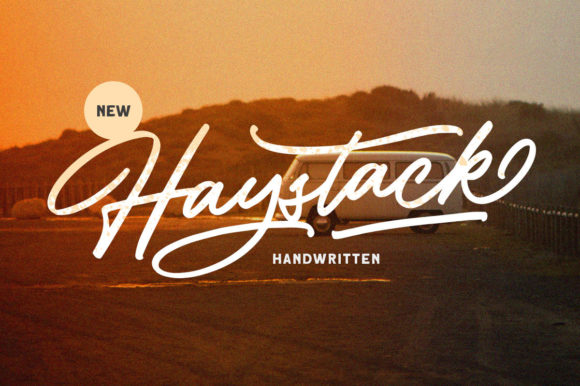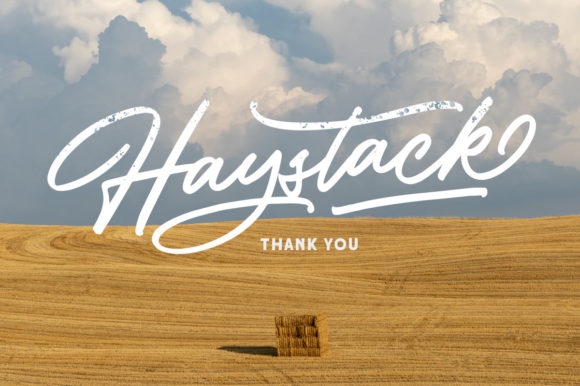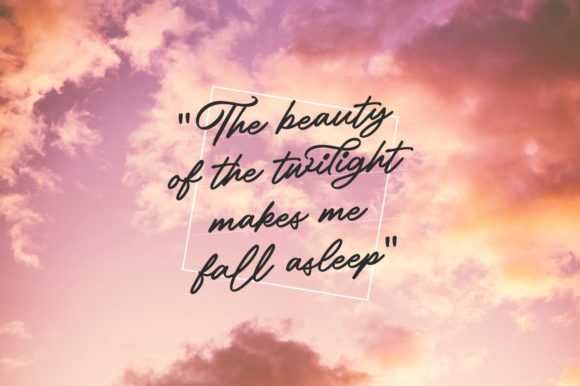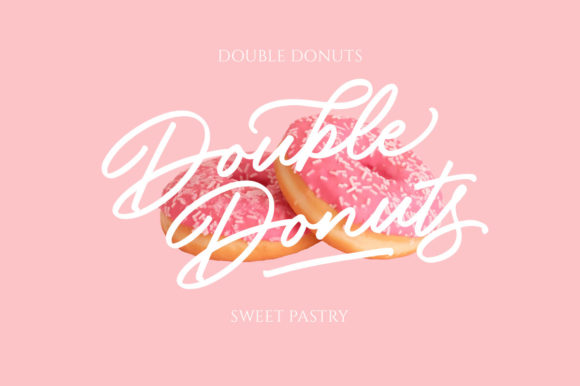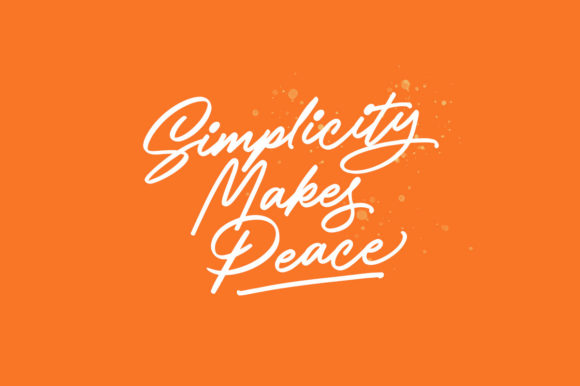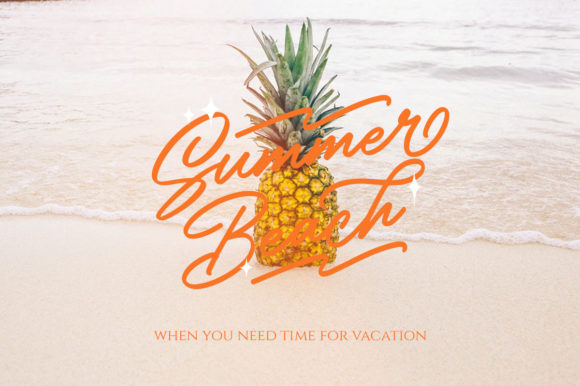
Haystack Font
About Haystack Font
Haystack is a beautiful and refined script font. It has a classy, elegant and modern look that can be used for logos, branding, invitations, stationery, wedding designs, social media posts, and much more!